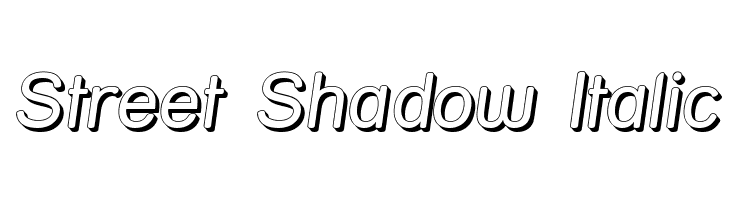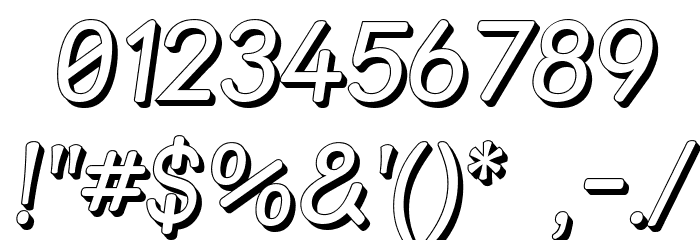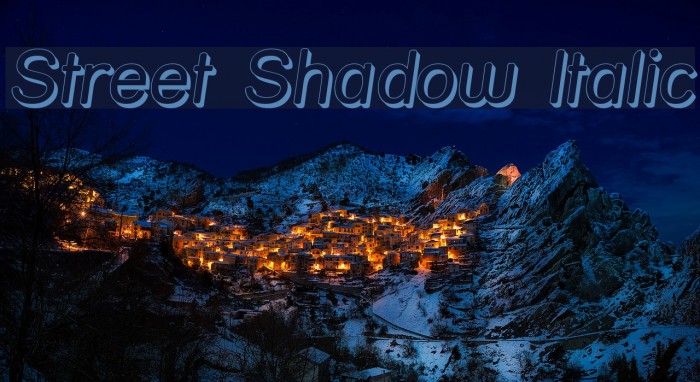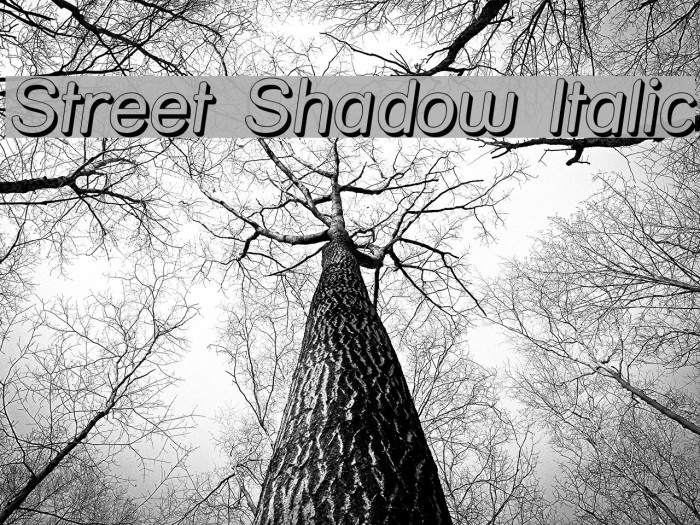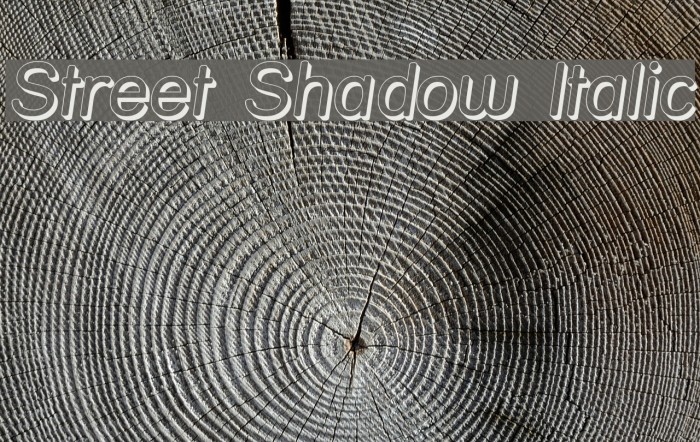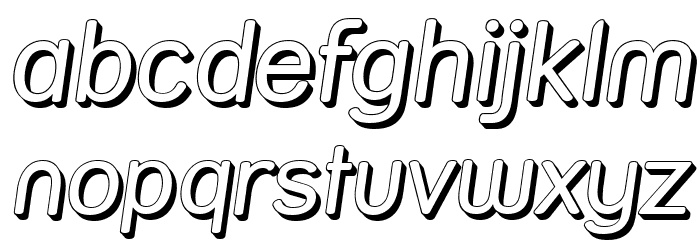
Street Shadow Italic Font
This font features a bold, italicized style with a distinct shadow effect that gives it a three-dimensional appearance. The uppercase and lowercase letters maintain a consistent slant, enhancing the dynamic look. The numerals and special characters are designed to match the overall aesthetic, ensuring uniformity across all elements. The shadow creates a sense of depth, making it ideal for eye-catching designs. The font's modern and playful style is suitable for projects that require a bold statement, such as posters, headlines, or branding materials.
Bold italic font with a shadow effect for a dynamic, three-dimensional look.
• Proposed Projects: Ideal for posters, headlines, branding, and any design needing a bold, dynamic appearance.
• Category: Decorative/Display
• Bold: Yes
• Italic: Yes
• Weight: Bold
• Width: Normal
• Character Spacing: Normal
• Contrast: Medium
• Overall Style: Modern
• Use Case: Headlines, Logos, Posters